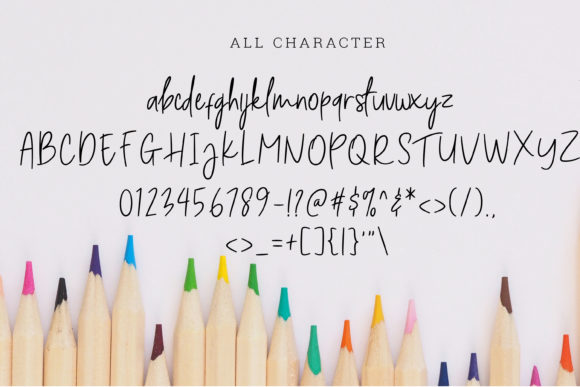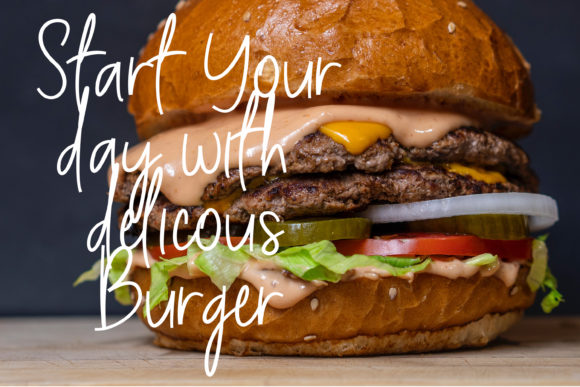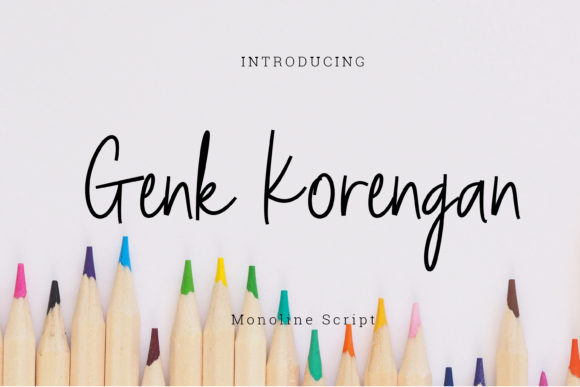
Discover the Elegance of Genk Korengan Font: Elevate Your Designs with a Timeless Touch
Are you on the hunt for a font that exudes elegance, sophistication, and a touch of personal flair? Look no further than the Genk Korengan Font, a stunning flowing handwritten font that is sure to capture your heart. With its incredibly distinct and timeless style, Genk Korengan is the perfect addition to your favorite projects, allowing you to create spectacular designs that stand out from the crowd.
The Unique Charm of Genk Korengan
Genk Korengan Font is not just any ordinary font. It’s a carefully crafted typeface that embodies the essence of handwritten elegance. Each letter, each curve, and each stroke is meticulously designed to provide a fluid and natural look that is both visually appealing and highly readable. This font is a masterpiece of typographic design, blending traditional handwritten elements with a modern touch to create a truly unique aesthetic.
Why Choose Genk Korengan Font?
There are countless reasons why Genk Korengan Font should be your go-to choice for your design projects. Here are a few:
- Elegant Touch: Genk Korengan adds an elegant touch to any project. Whether you’re working on a branding project, a website design, or a craft project, this font provides a level of sophistication that’s hard to match.
- Versatility: This font is incredibly versatile. It can be used for a wide range of projects, from formal invitations and elegant branding to creative crafts and personal stationery.
- Distinct Style: The distinct style of Genk Korengan sets it apart from more generic fonts. Its unique charm ensures that your designs will have a personal touch that resonates with your audience.
- Timeless Appeal: Unlike trends that fade over time, Genk Korengan has a timeless quality that ensures your designs remain stylish and relevant for years to come.
Applications of Genk Korengan Font
The possibilities are endless when it comes to using Genk Korengan Font. Here are some popular applications:
- Branding and Logo Design: Create a lasting impression with a logo that exudes elegance and sophistication.
- Website Design: Enhance the user experience with a font that combines readability with aesthetic appeal.
- Social Media Graphics: Stand out on social media with eye-catching graphics that showcase your personality or brand’s style.
- Invitations and Stationery: Add a personal touch to your invitations, letters, and stationery with a font that feels both luxurious and intimate.
- Crafts and DIY Projects: Whether you’re making cards, scrapbooking, or working on other craft projects, Genk Korengan adds a touch of elegance to your creations.
Tips for Using Genk Korengan Font
To make the most of Genk Korengan Font, consider the following tips:
- Pair with Complementary Fonts: While Genk Korengan is beautiful on its own, it can also be paired with other fonts to create interesting contrasts. Choose fonts that complement its elegance without overpowering it.
- Experiment with Sizes and Colors: Don’t be afraid to experiment with different sizes and colors to find the perfect combination for your project.
- Use for Headings and Highlights: For maximum impact, use Genk Korengan for headings or to highlight important information.
Genk Korengan Font is more than just a typeface – it’s a design statement. Its elegant touch, distinct style, and timeless appeal make it an invaluable asset for designers and crafters looking to elevate their projects. Whether you’re aiming for sophistication, personality, or a blend of both, Genk Korengan is sure to exceed your expectations. So why wait? Fall in love with Genk Korengan and bring a touch of elegance to your designs today!